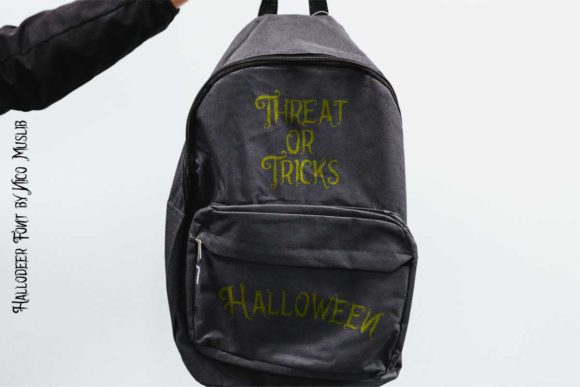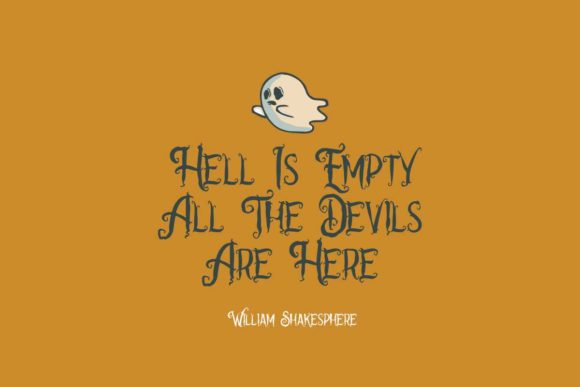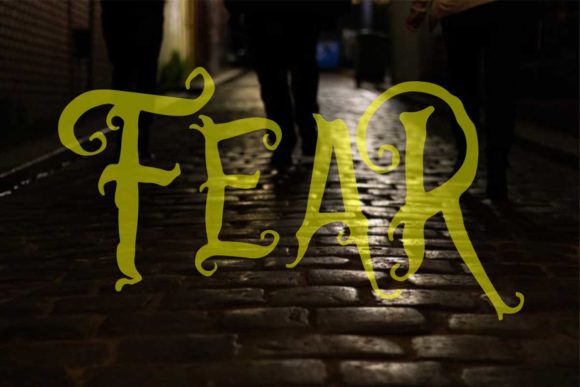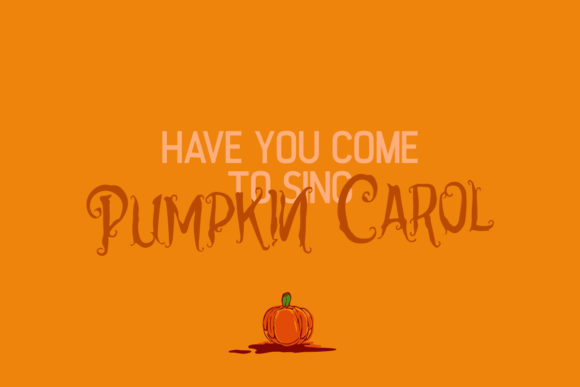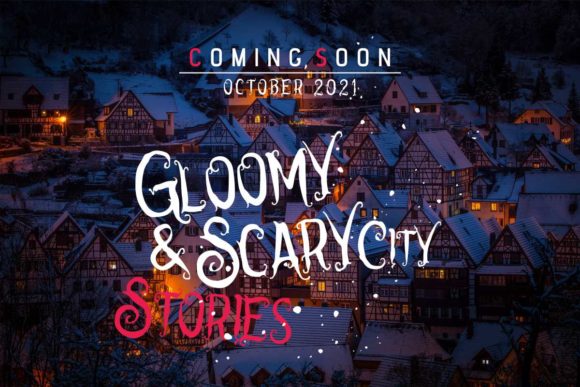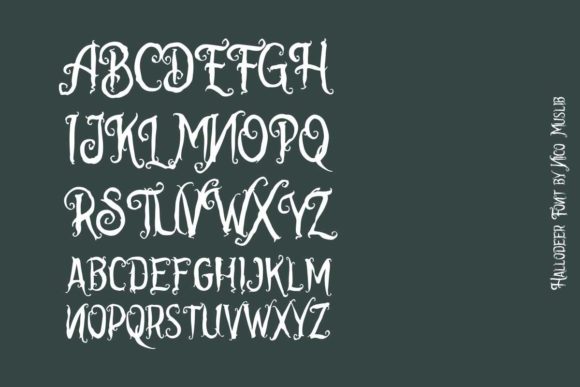
Introducing Hallodeer Font: The Ultimate Addition to Your Halloween-themed Designs
Are you a designer, crafter, or DIY enthusiast looking for a unique and playful font to elevate your Halloween-themed projects? Look no further than Hallodeer Font! This adorable and quirky display font is specifically designed to add a touch of whimsy and fun to your creative endeavors. In this article, we’ll dive into the world of Hallodeer Font, exploring its features, benefits, and uses, as well as provide tips and inspiration for incorporating it into your designs.
What is Hallodeer Font?
Hallodeer Font is a one-of-a-kind, hand-crafted display font that embodies the spirit of Halloween. Its cute and quirky design makes it perfect for a wide range of creative projects, from party invitations and decorations to social media graphics and digital art. With its bold and eye-catching appearance, Hallodeer Font is sure to make your designs stand out from the crowd.
Key Features of Hallodeer Font
- Unique and Quirky Design: Hallodeer Font boasts a distinctive, hand-drawn design that exudes a playful and festive vibe.
- Display Font: This font is specifically designed for display purposes, making it ideal for headlines, titles, and short phrases.
- Halloween-themed: Hallodeer Font is perfect for Halloween-themed projects, but its versatility also allows it to be used in other creative contexts.
- Easily Readable: Despite its playful design, Hallodeer Font remains easily readable, even at smaller sizes.
Benefits of Using Hallodeer Font
So, why choose Hallodeer Font for your creative projects? Here are just a few benefits:
- Adds a Touch of Whimsy: Hallodeer Font brings a dash of playfulness and fun to your designs, making them more engaging and memorable.
- Perfect for DIY Projects: This font is ideal for crafters and DIY enthusiasts looking to add a personal touch to their Halloween-themed projects.
- Versatile: While Hallodeer Font is specifically designed for Halloween, its unique design also makes it suitable for other creative projects, such as party invitations, branding, and more.
Using Hallodeer Font in Your Designs
Now that you’re excited about Hallodeer Font, let’s explore some ideas for incorporating it into your creative projects:
- Halloween Party Invitations: Use Hallodeer Font to create spooky-ooky invitations that set the tone for a fun and festive Halloween party.
- DIY Decorations: Add a personal touch to your Halloween decorations with signs, banners, and other DIY projects featuring Hallodeer Font.
- Social Media Graphics: Elevate your Halloween-themed social media graphics with Hallodeer Font, making them more engaging and shareable.
- Digital Art: Incorporate Hallodeer Font into your digital art projects, such as illustrations, animations, and more.
Tips and Tricks for Working with Hallodeer Font
To get the most out of Hallodeer Font, here are some tips and tricks to keep in mind:
- Experiment with Colors: Play around with different colors to find the perfect combination that complements your design and Hallodeer Font.
- Mix and Match Fonts: Combine Hallodeer Font with other fonts to create a unique and visually appealing design.
- Pay Attention to Size: Make sure to adjust the font size according to your design, ensuring that Hallodeer Font remains easily readable.
In conclusion, Hallodeer Font is a one-of-a-kind display font that is sure to add a touch of whimsy and fun to your Halloween-themed designs. With its unique and quirky design, versatility, and ease of use, this font is perfect for designers, crafters, and DIY enthusiasts looking to create engaging and memorable projects. So, don’t be afraid to get creative and experiment with Hallodeer Font – your designs will thank you!